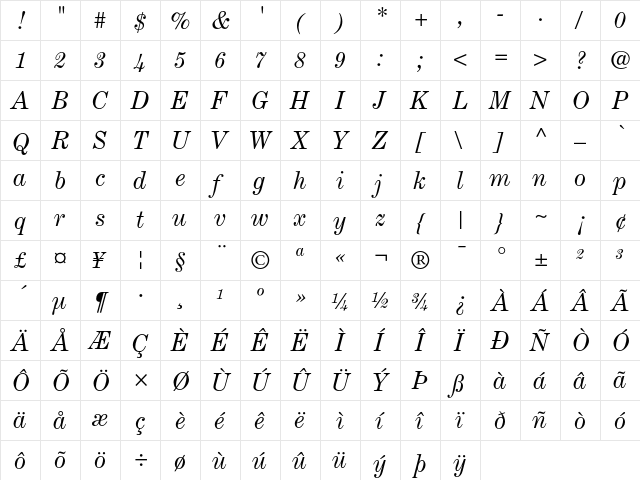
CenturyExpanded Regular
Design Context for CenturyExpanded Typeface
CenturyExpanded offers clean, dependable letterforms without strong stylistic allegiance, making it a practical choice for designers who need flexibility.
Pro Tip: Use CenturyExpanded in both headline and body roles to test its range before committing to a single application.